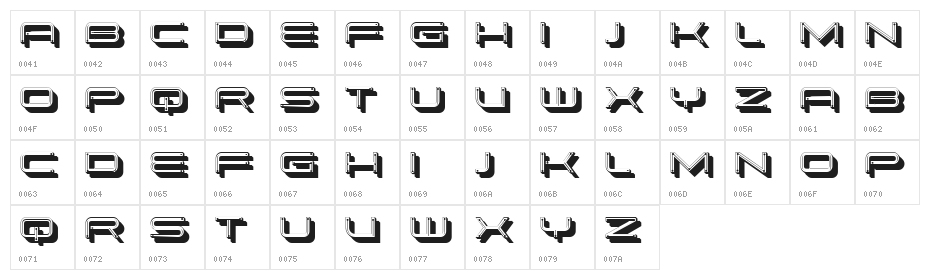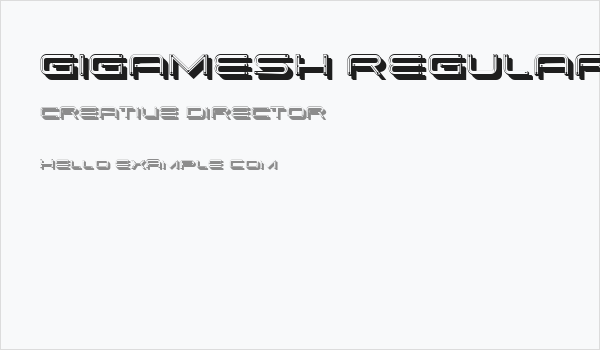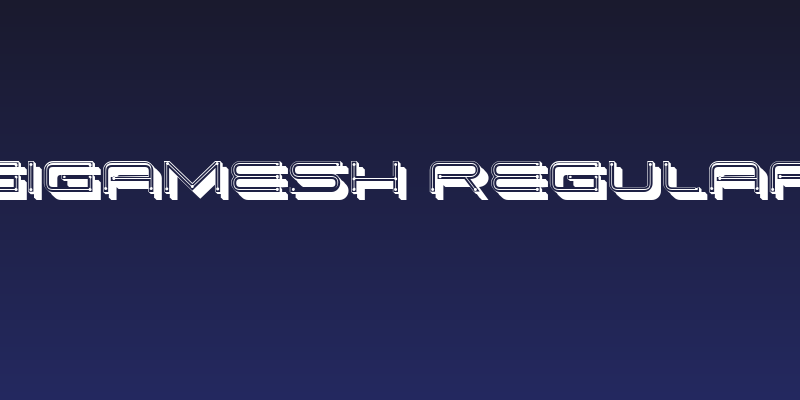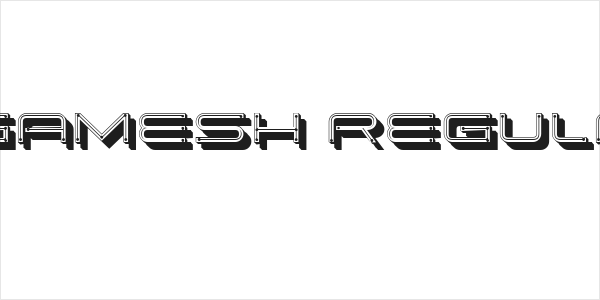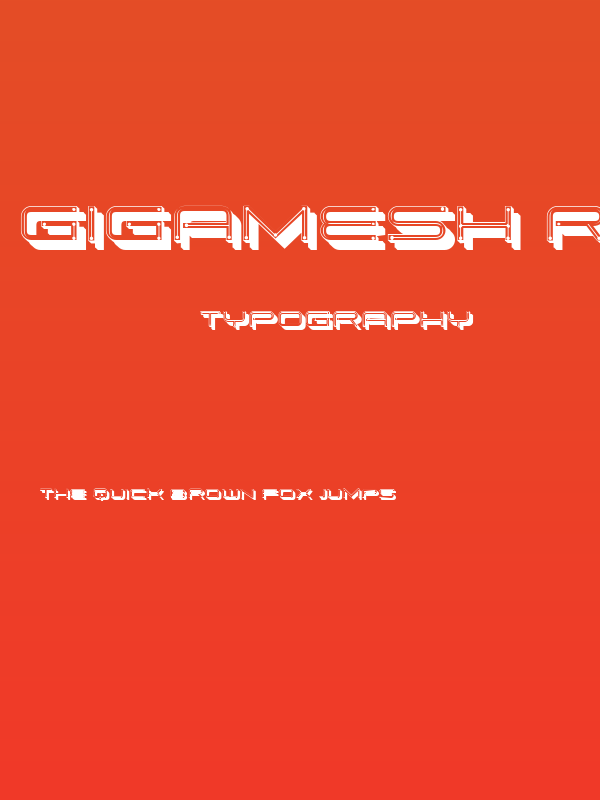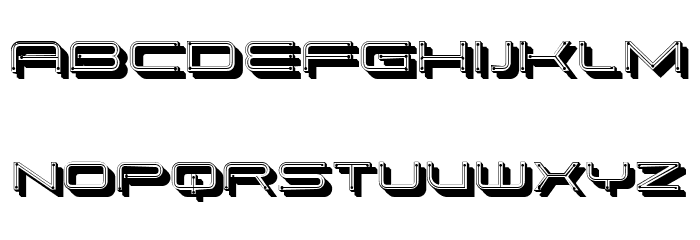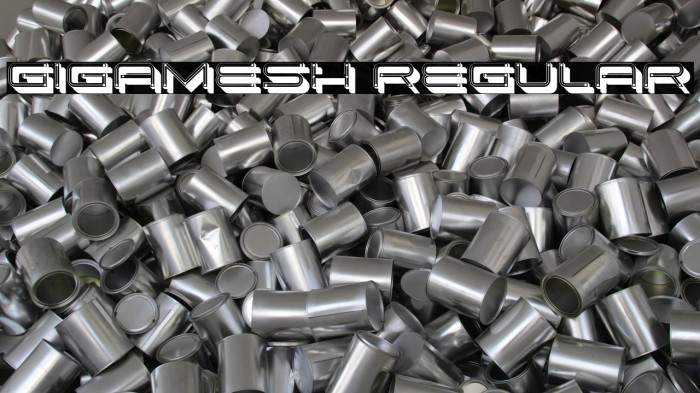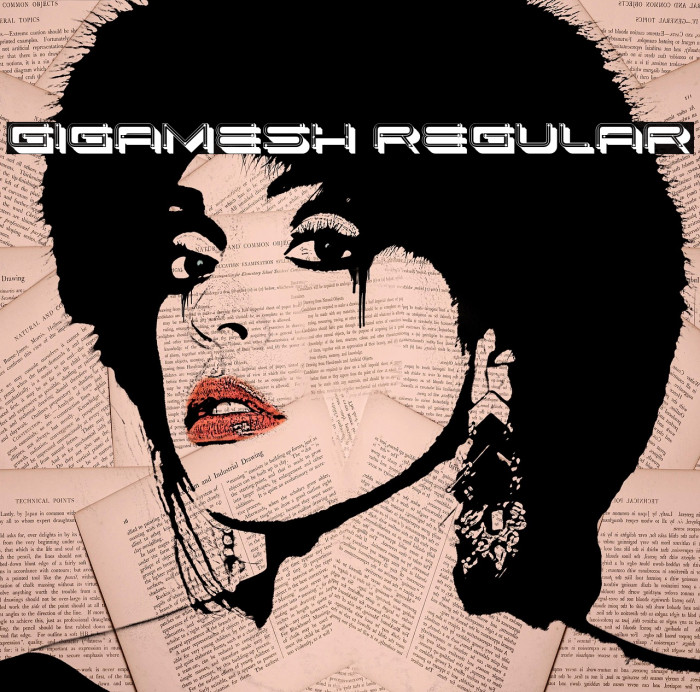
Gigamesh Regular Font
Gigamesh Regular Description
This font features a futuristic and digital aesthetic, characterized by its bold, geometric letterforms. The design incorporates a three-dimensional effect with shadowing, giving it a dynamic and modern appearance. Each character is constructed with clean lines and sharp angles, creating a sense of precision and technological sophistication. The uppercase letters are particularly striking, with a uniform height and width that enhances readability while maintaining a unique style. The font's structure is consistent, making it suitable for various digital and print applications where a contemporary and eye-catching look is desired.
| Proposed Projects | Ideal for technology branding, video game titles, sci-fi movie posters, and digital interfaces. |